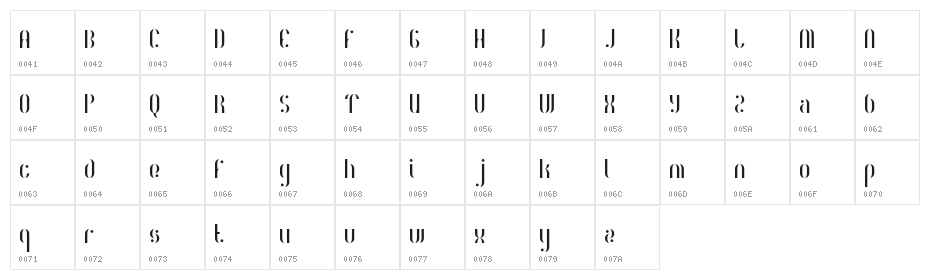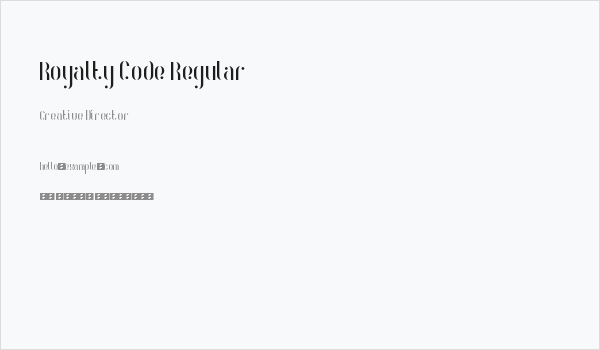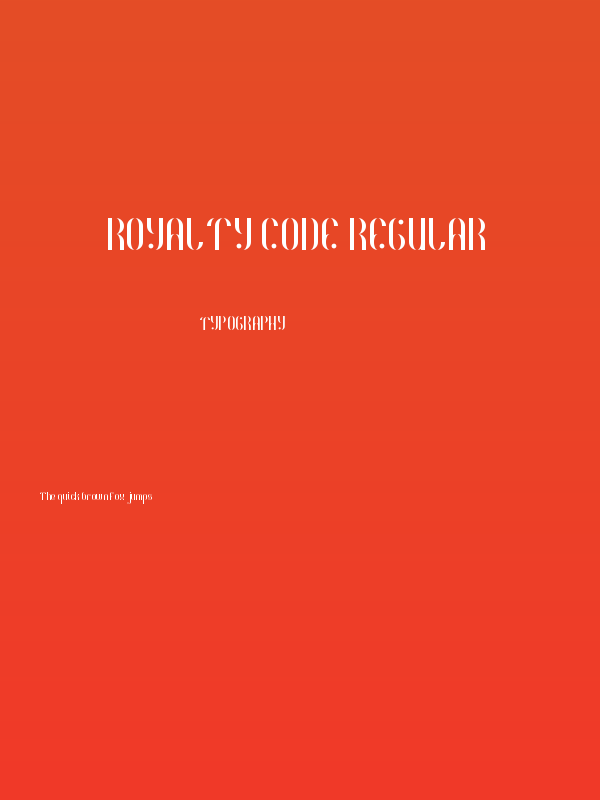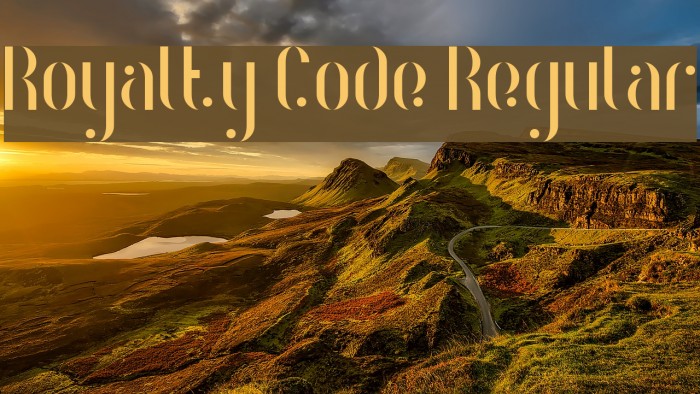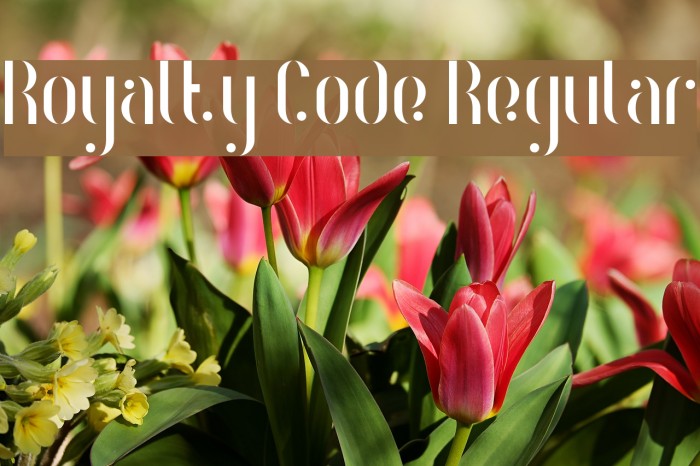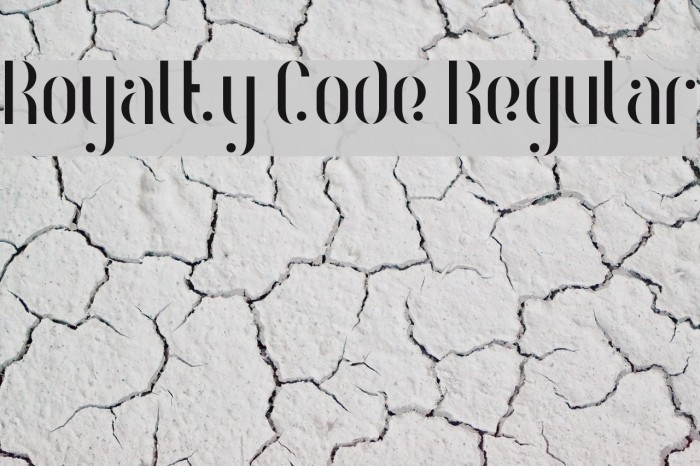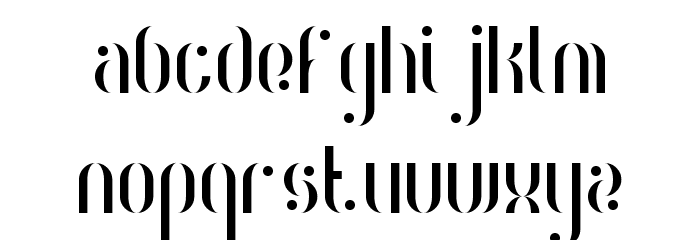
Royalty Code Regular Font
Royalty Code Regular Description
This font features a unique and modern design with a decorative flair. The characters are constructed with a combination of thick and thin strokes, creating a high contrast that adds elegance and sophistication. The uppercase letters are bold and striking, while the lowercase letters maintain a consistent style with distinctive curves and angles. The numbers and special characters follow the same design principles, ensuring a cohesive look across all elements. The font's overall appearance is both artistic and functional, making it suitable for a variety of creative projects.
| Proposed Projects | Ideal for branding, logos, headlines, and artistic projects requiring a bold statement. |